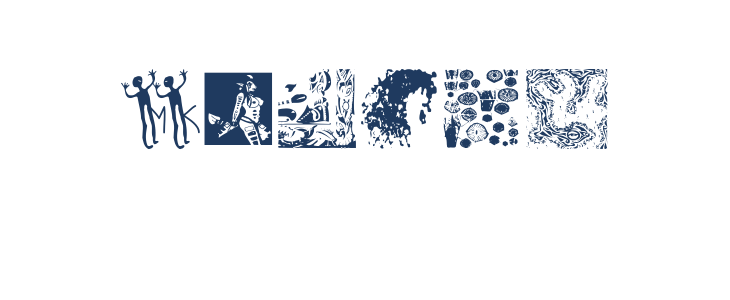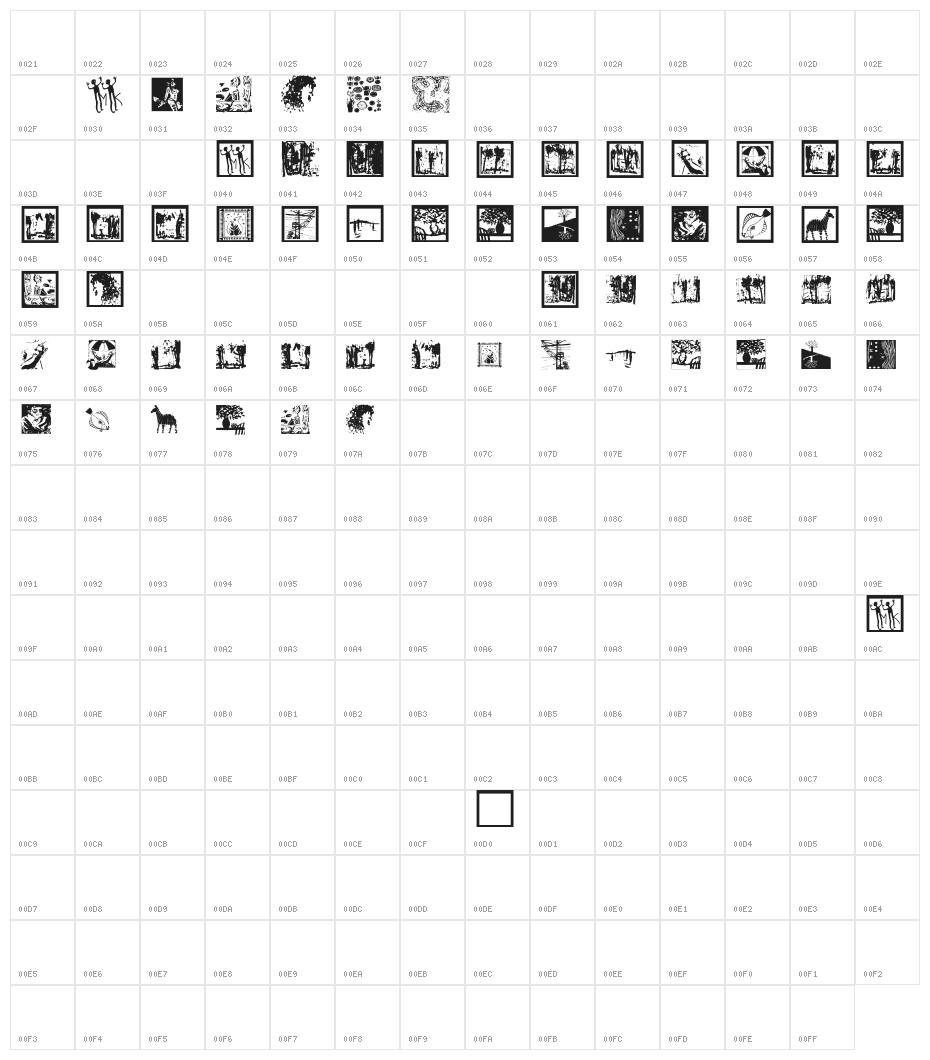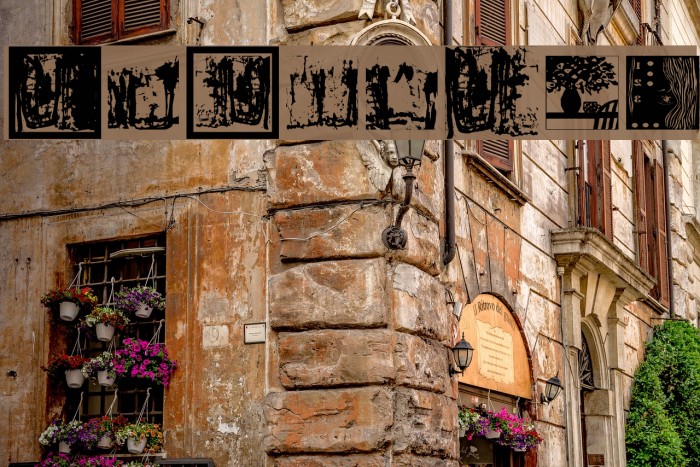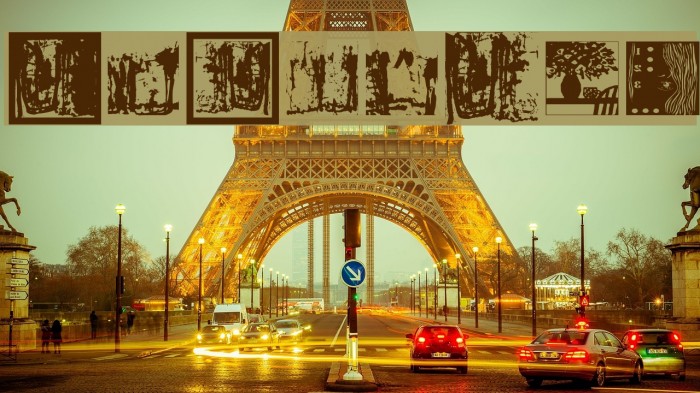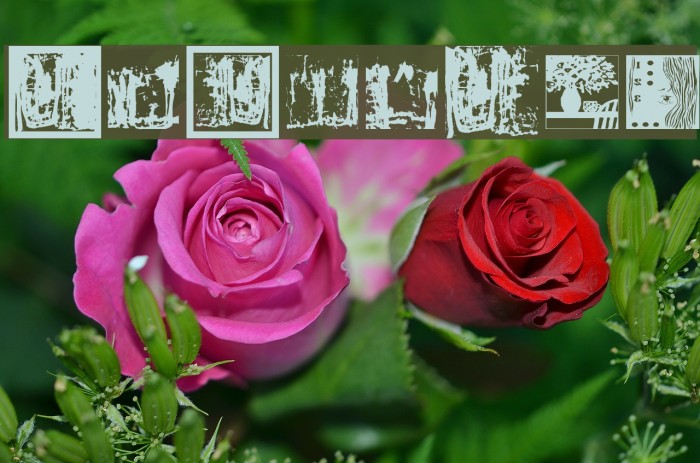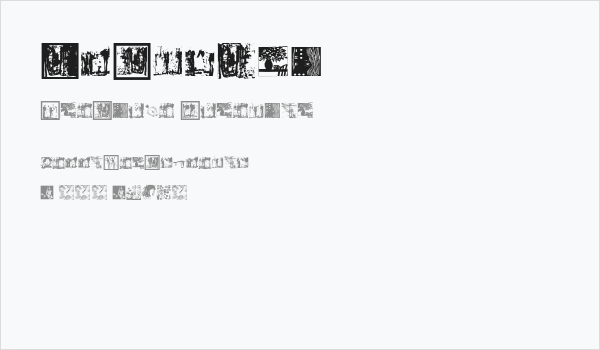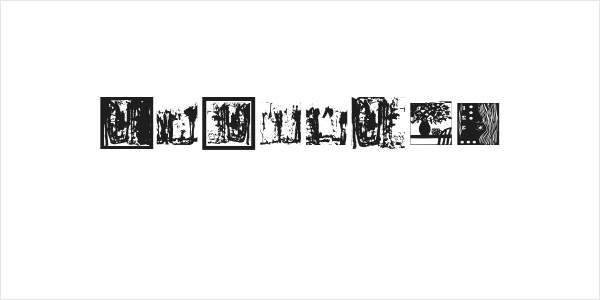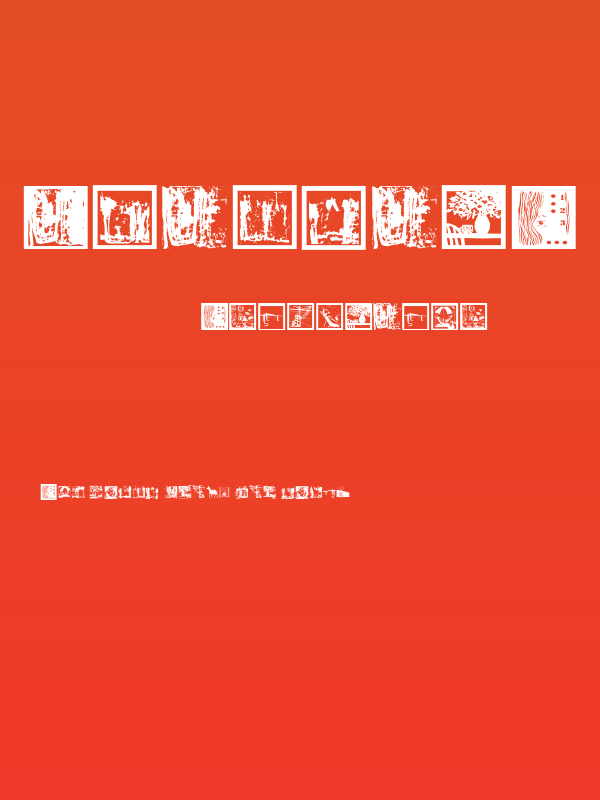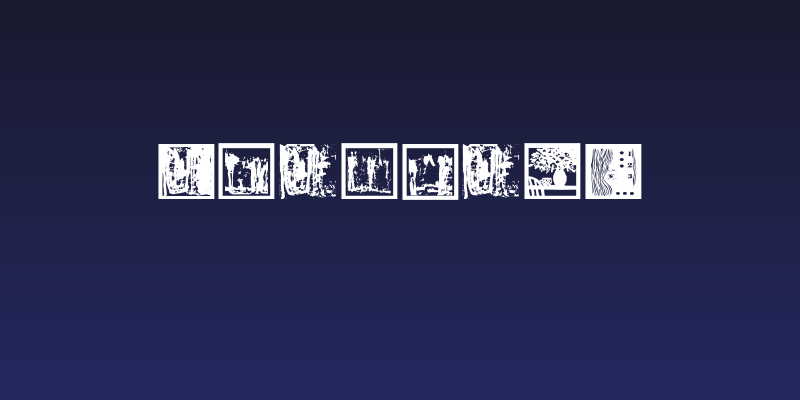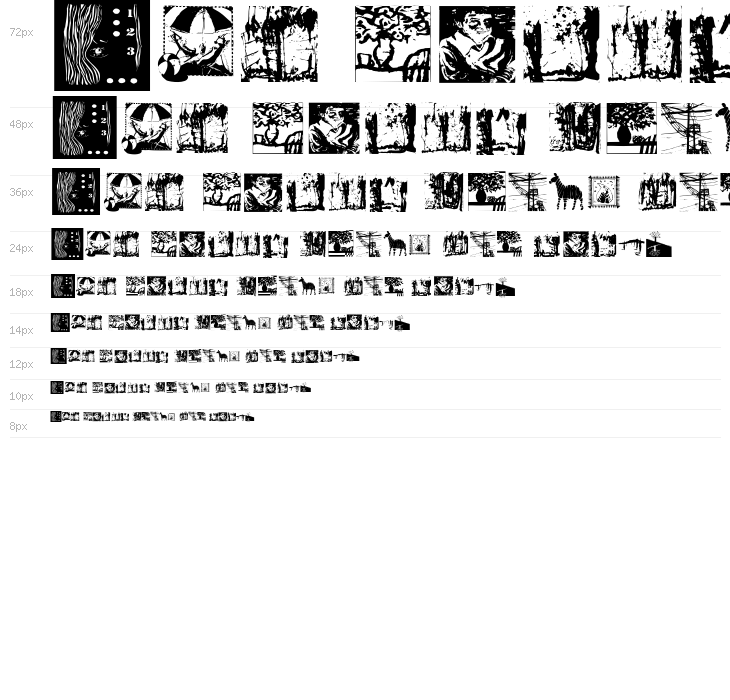
BlackArt Font
BlackArt Description
A highly decorative, illustrative font featuring bold, black-and-white graphic images inspired by African art, nature, and abstract motifs. Each character is represented by a unique pictorial square, making it more of a symbol or dingbat set than a traditional typeface.
| Overall Style | Decorative, Artistic, Ethnic |
| Use Case | Logos, Posters, Artistic projects, Decorative headings |
| Proposed Projects | Posters, album covers, art projects, cultural event branding, book covers, creative invitations. |